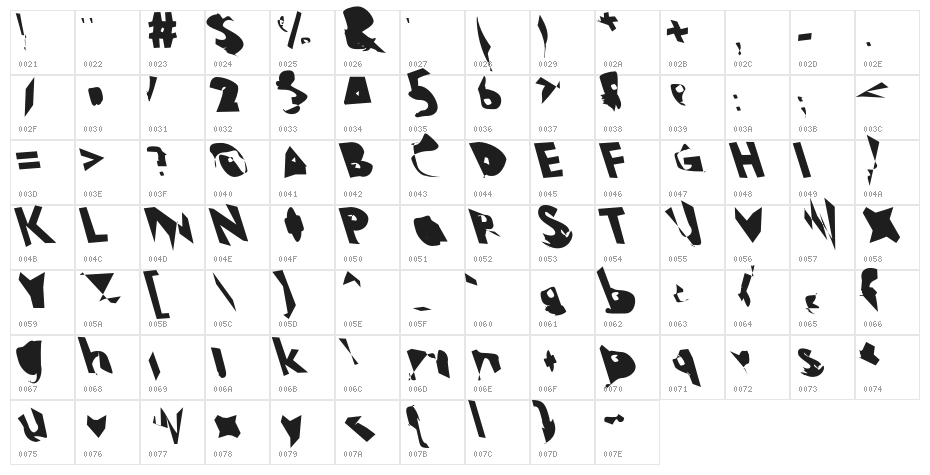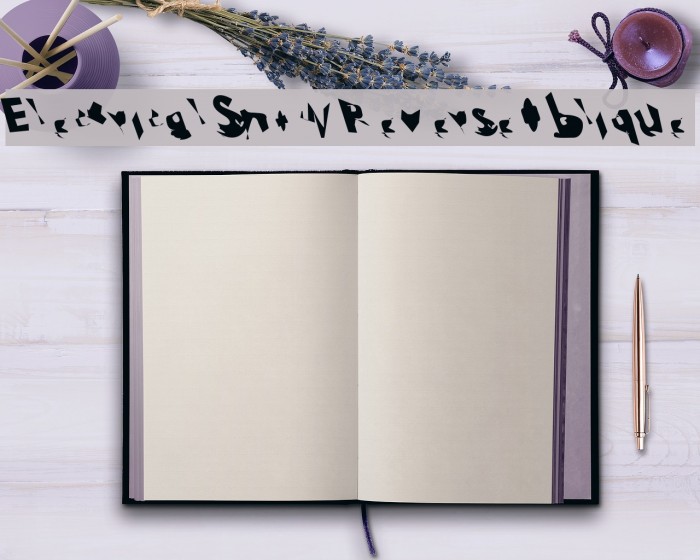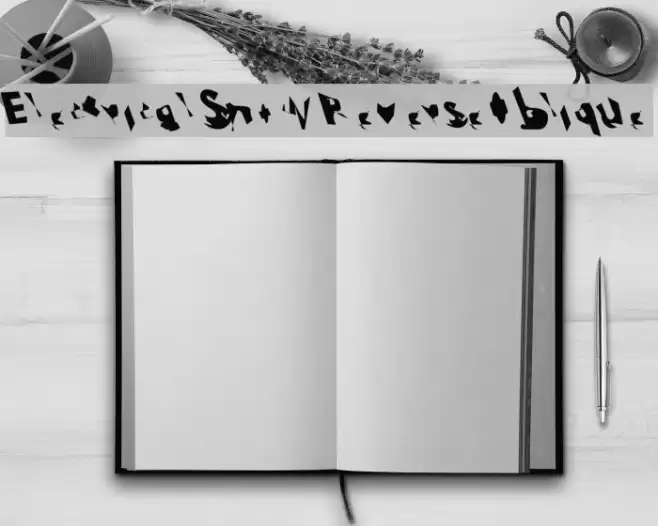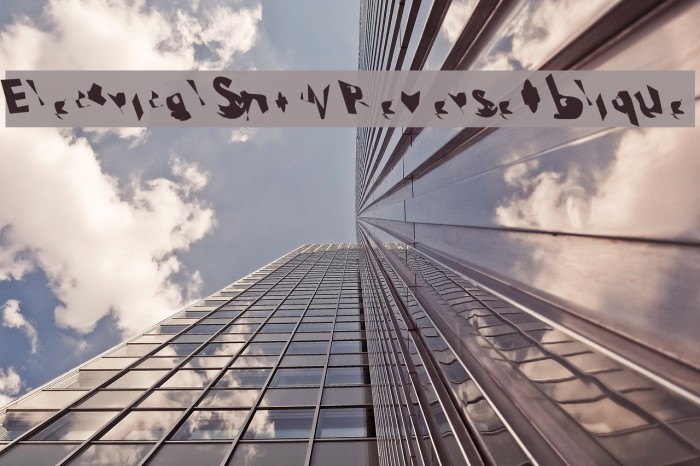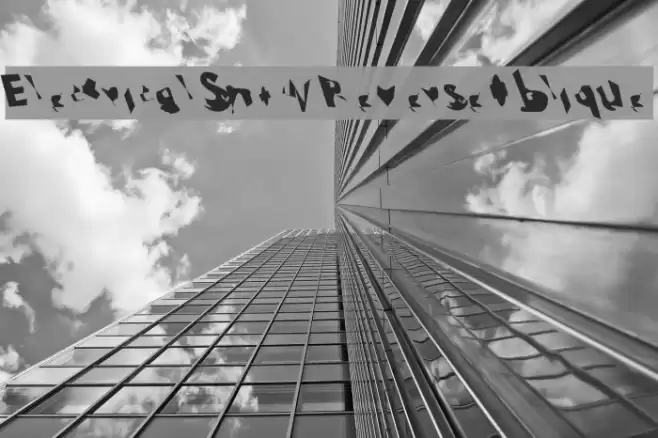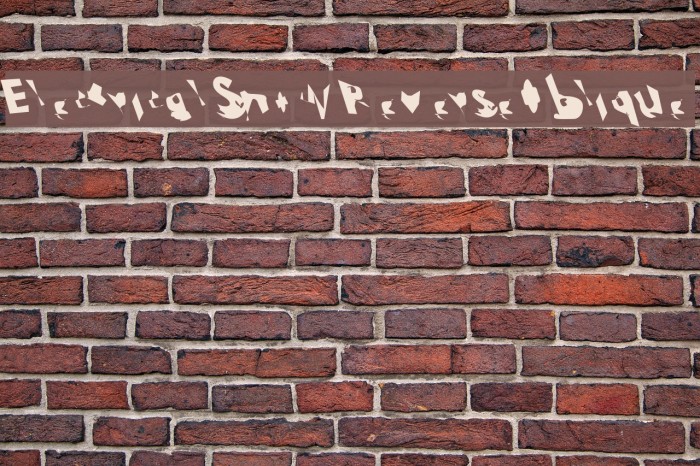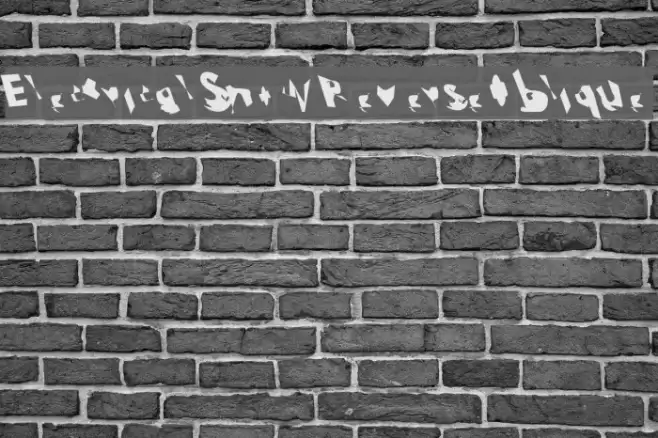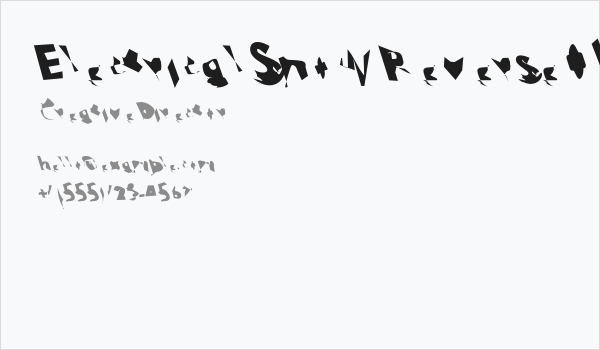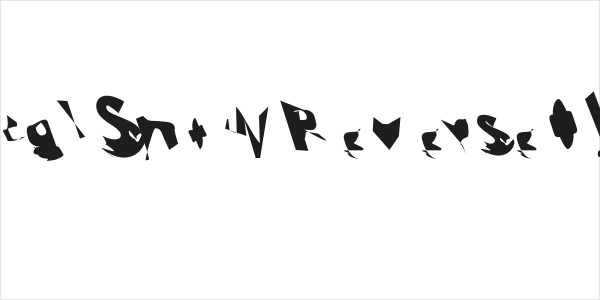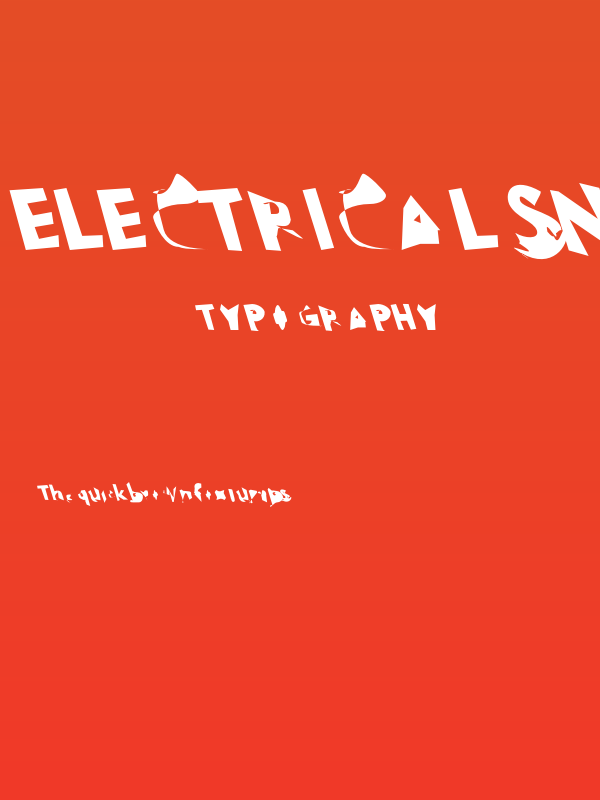
Electrical Snow ReverseOblique Font
Electrical Snow ReverseOblique Description
This font features a highly abstract and fragmented design, with each character appearing as if it has been shattered or distorted. The letters and numbers are bold and irregular, creating a chaotic yet intriguing visual effect. The style is reminiscent of a glitch or digital distortion, making it stand out with its unique and unconventional appearance. The characters are not uniform, with varying angles and shapes, contributing to a dynamic and unpredictable aesthetic. This font is perfect for projects that require a bold statement or an avant-garde touch.
| Overall Style | Modern, Avant-garde |
| Use Case | Headlines, Logos, Artistic projects |
| Proposed Projects | Ideal for album covers, experimental art projects, edgy branding, and digital media that seeks to convey a sense of disruption or innovation. |